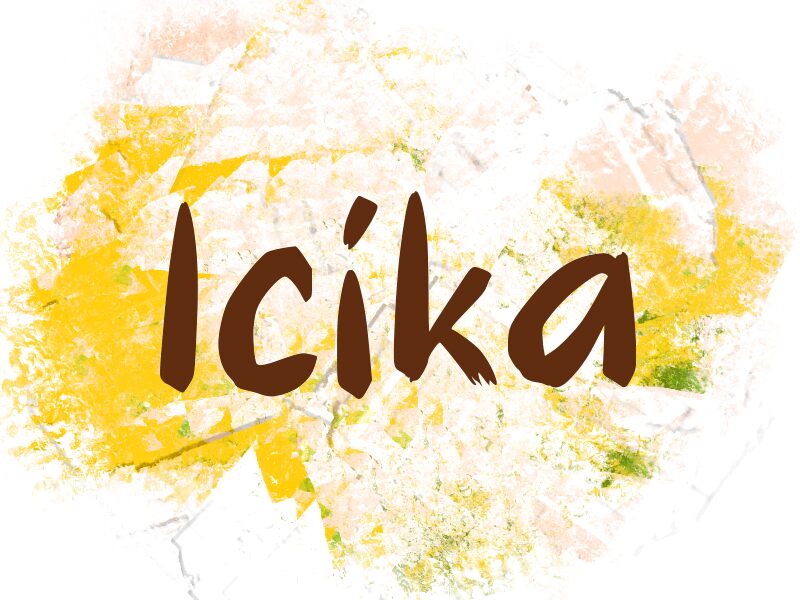
Icika
Icika font by wep captures a casual and contemporary feel with organic brush strokes that express uniqueness. The free brush font is designed in a cursive style with equal text-space combinations and terminal strokes which are slightly minimal in appearance, encouraging both an elegant and raw typographic presence.
Proper uses include logotypes, advertising headlines, packaging labels, album art designs, apparel/ fashion tags, bios on social media platforms (Instagram etc.), branding projects such as business cards or letterheads. Other valid applications also include website designs such as blogs themes or page header fonts for portfolios.